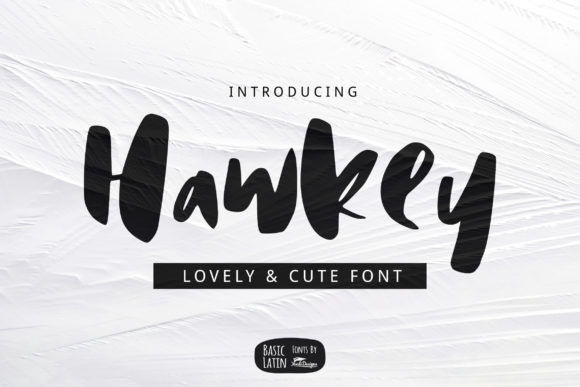
Embark on a creative journey with Hawkey Font, a captivating display font that exudes charm and playfulness. Its strokes, reminiscent of a skilled brush pen, dance across the screen, leaving a trail of visual delight. Prepare to be mesmerized by its casual, fun-loving personality, perfect for injecting a touch of whimsy into your designs.
Indulge in the versatility of Hawkey Font, a font family that effortlessly adapts to a multitude of projects. Whether you're crafting a captivating logo, establishing a strong brand identity, engaging your audience on social media, or embarking on a DIY adventure, Hawkey Font is your steadfast companion. Its versatility knows no bounds, allowing your creativity to soar without limits.
With Hawkey Font, the possibilities are endless. Its easy-going nature makes it the perfect choice for logos, adding a touch of warmth and approachability to your brand. Social media posts come alive with Hawkey Font, captivating your audience with its playful charm. And for those with a passion for crafting, Hawkey Font transforms DIY projects into masterpieces, adding a unique touch that sets your creations apart.
Immerse yourself in the world of Hawkey Font, a font family that sparks joy and ignites imagination. Its casual, quirky style is a breath of fresh air, inviting you to explore new realms of creativity. Unleash your inner artist and transform your designs into captivating works of art.
Make Hawkey Font your creative partner, the font that brings life to your logos, captivates your audience on social media, and elevates your DIY projects to new heights. Its versatility and charm will leave an unforgettable impression, making Hawkey Font an indispensable tool in your creative arsenal. Discover the magic of Hawkey Font today and unlock a world of possibilities.